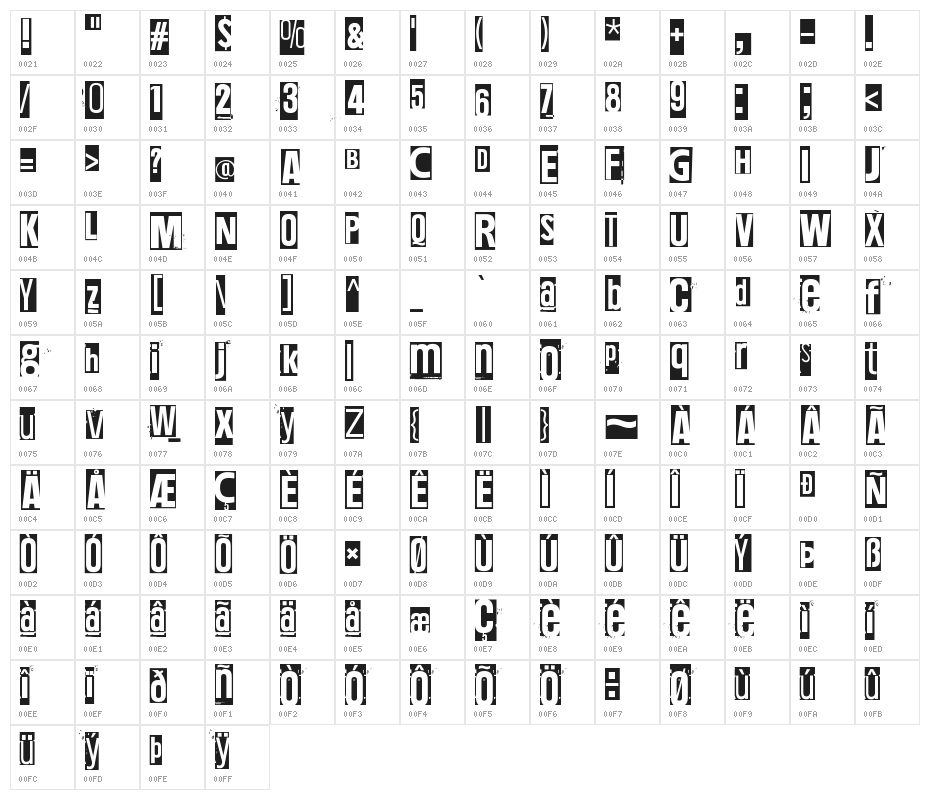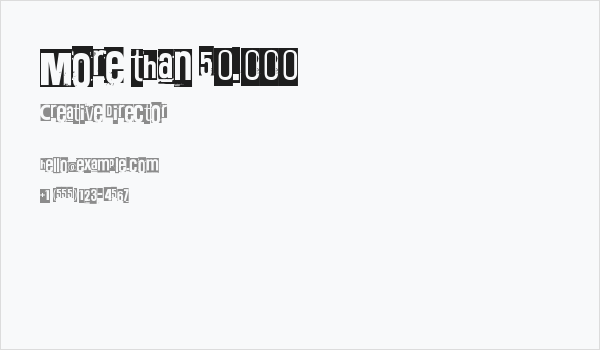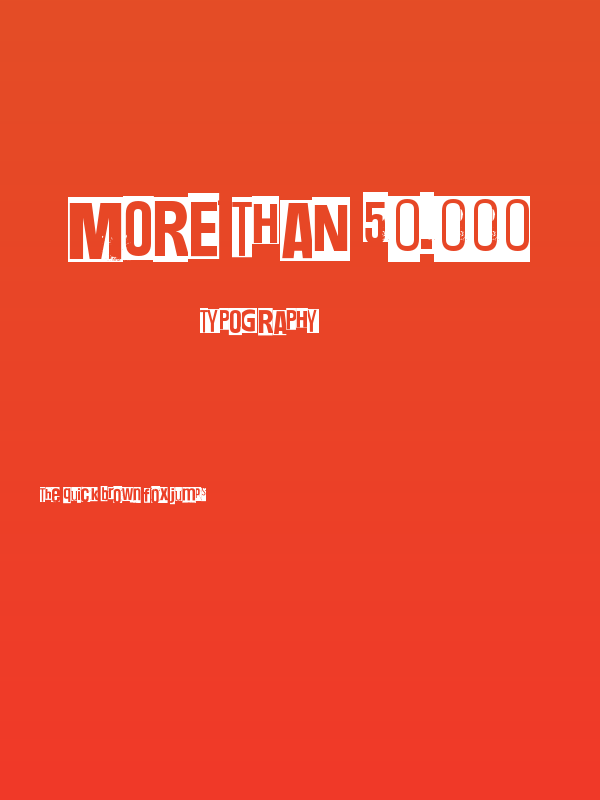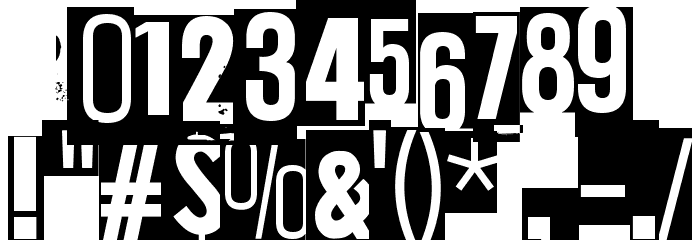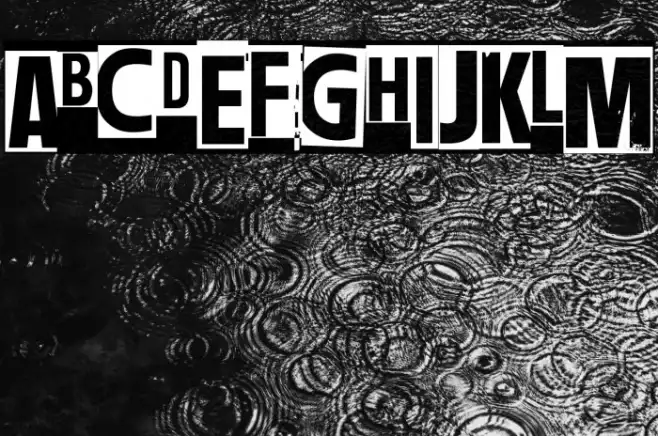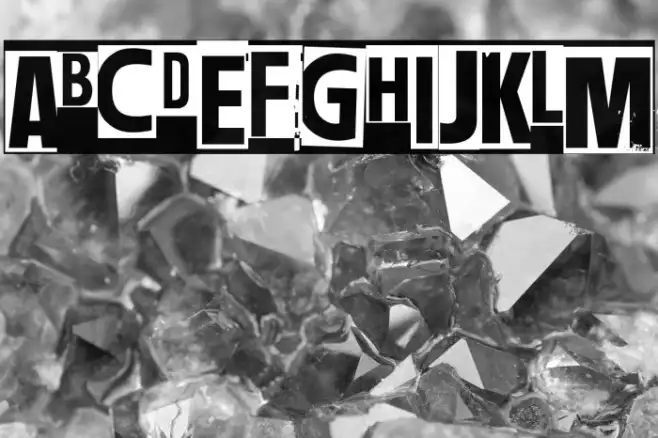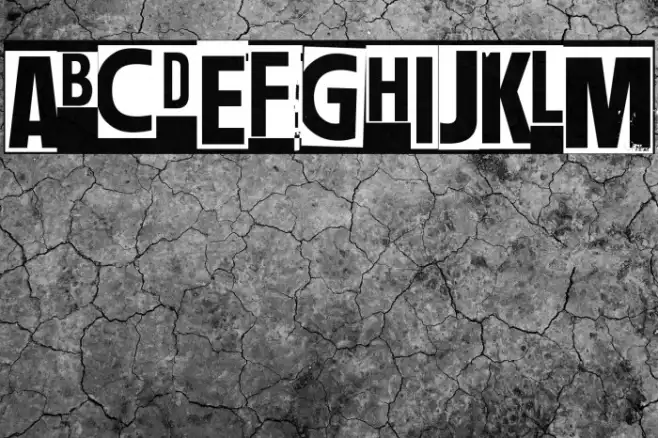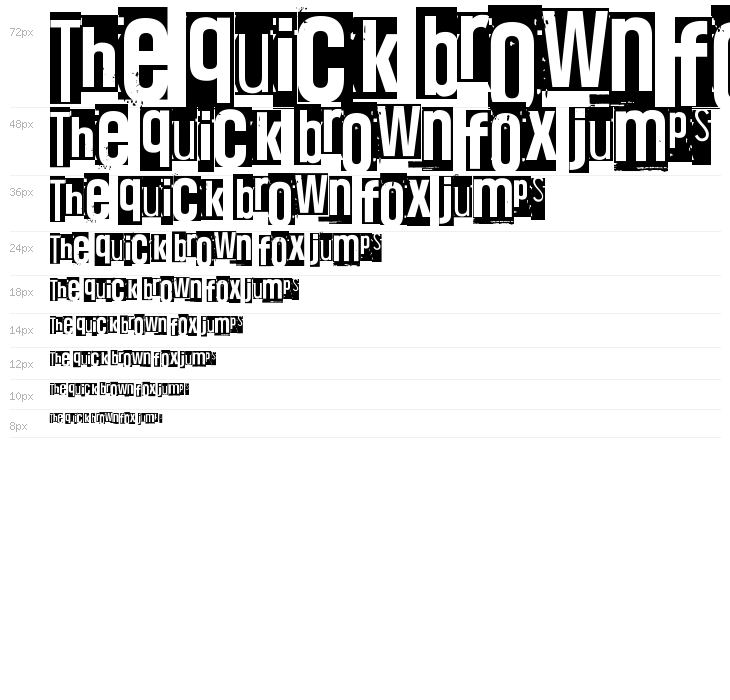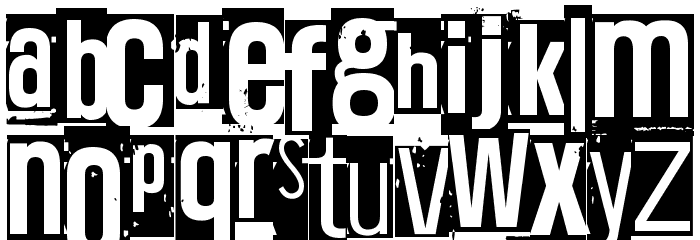
More than 50.000 Font
This font features a bold and distressed style, giving it a rugged and edgy appearance. The uppercase letters are particularly striking, with a blocky and robust form that commands attention. The lowercase letters maintain the same boldness, ensuring consistency across the typeface. Numbers and special characters are equally bold, with some characters showing a unique distressed texture that adds character and depth. The overall design is reminiscent of vintage or industrial aesthetics, making it ideal for projects that require a strong and impactful visual presence.
| Overall Style | Vintage, Industrial |
| Proposed Projects | Ideal for posters, album covers, branding for edgy or industrial-themed products, and any design requiring a strong visual impact. |